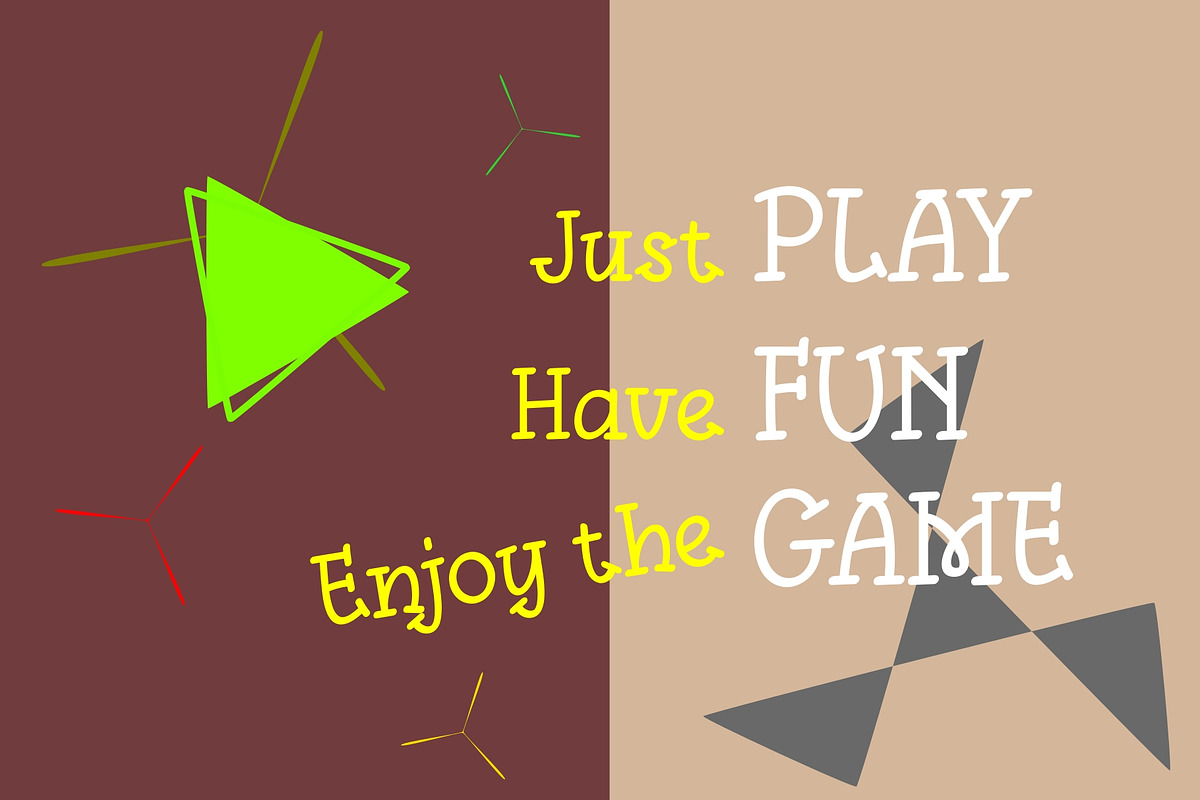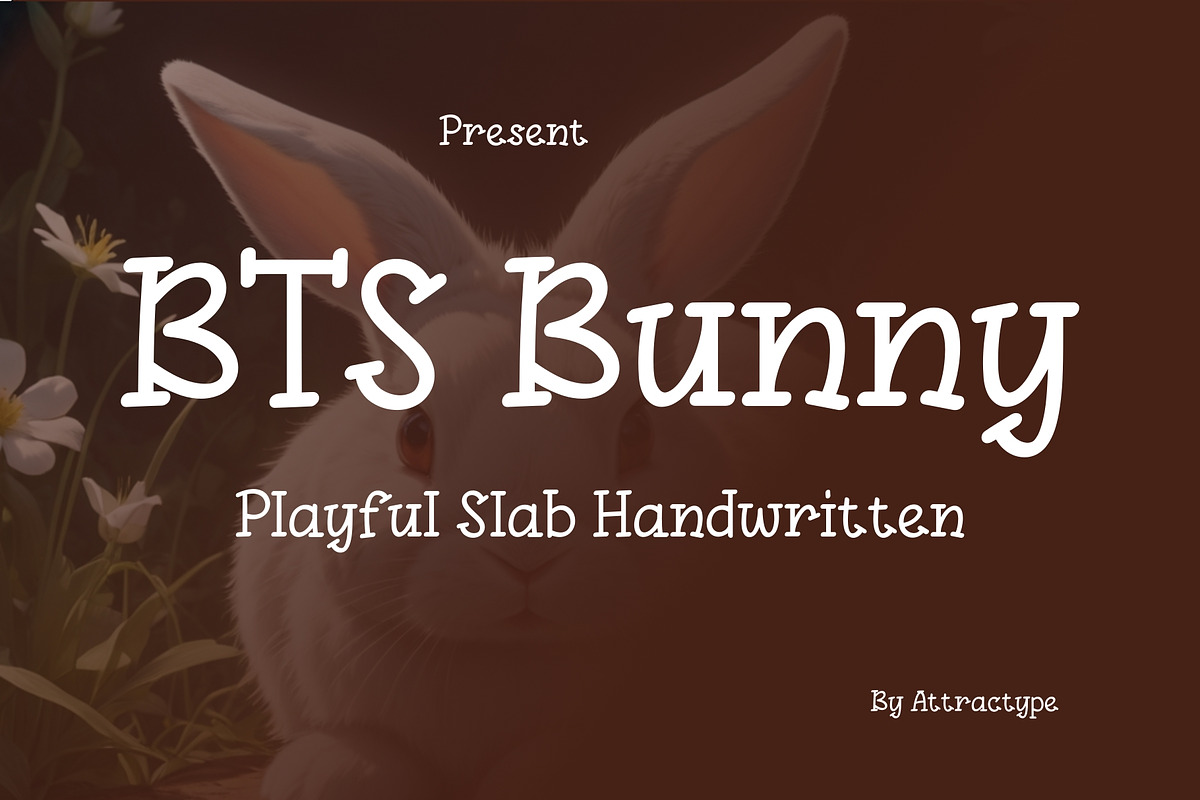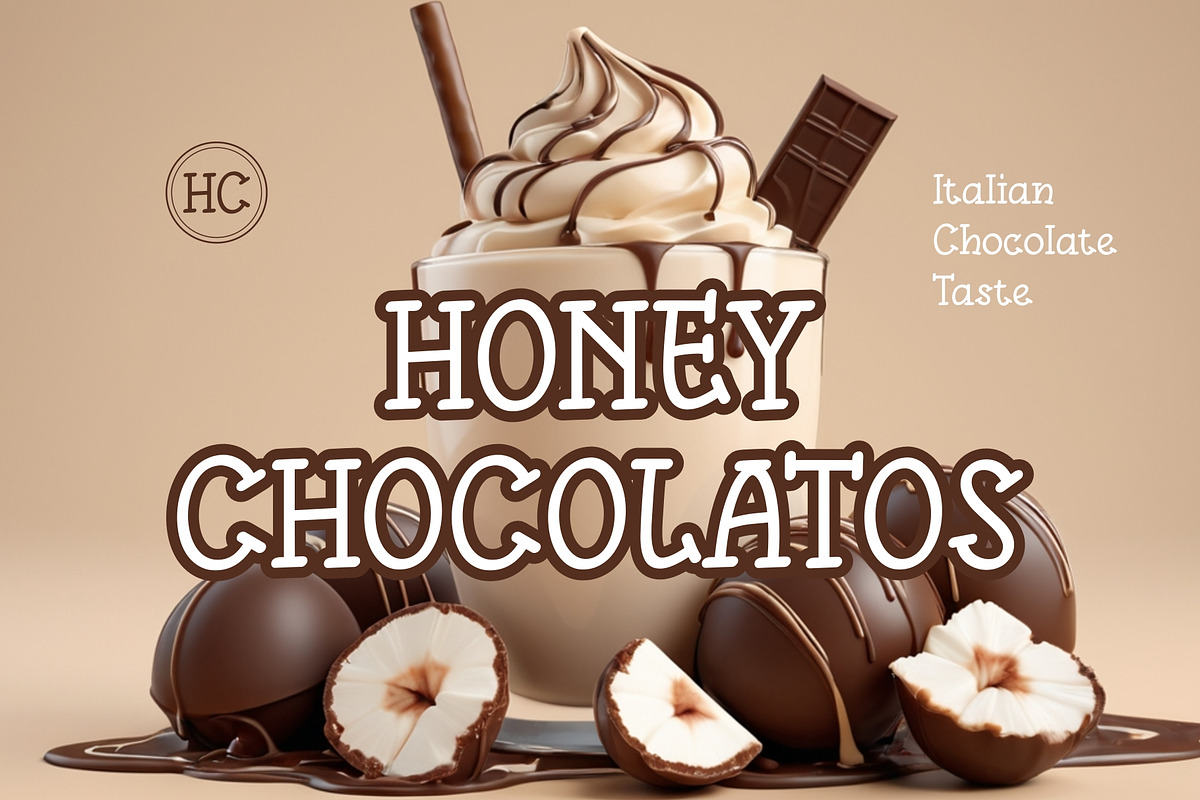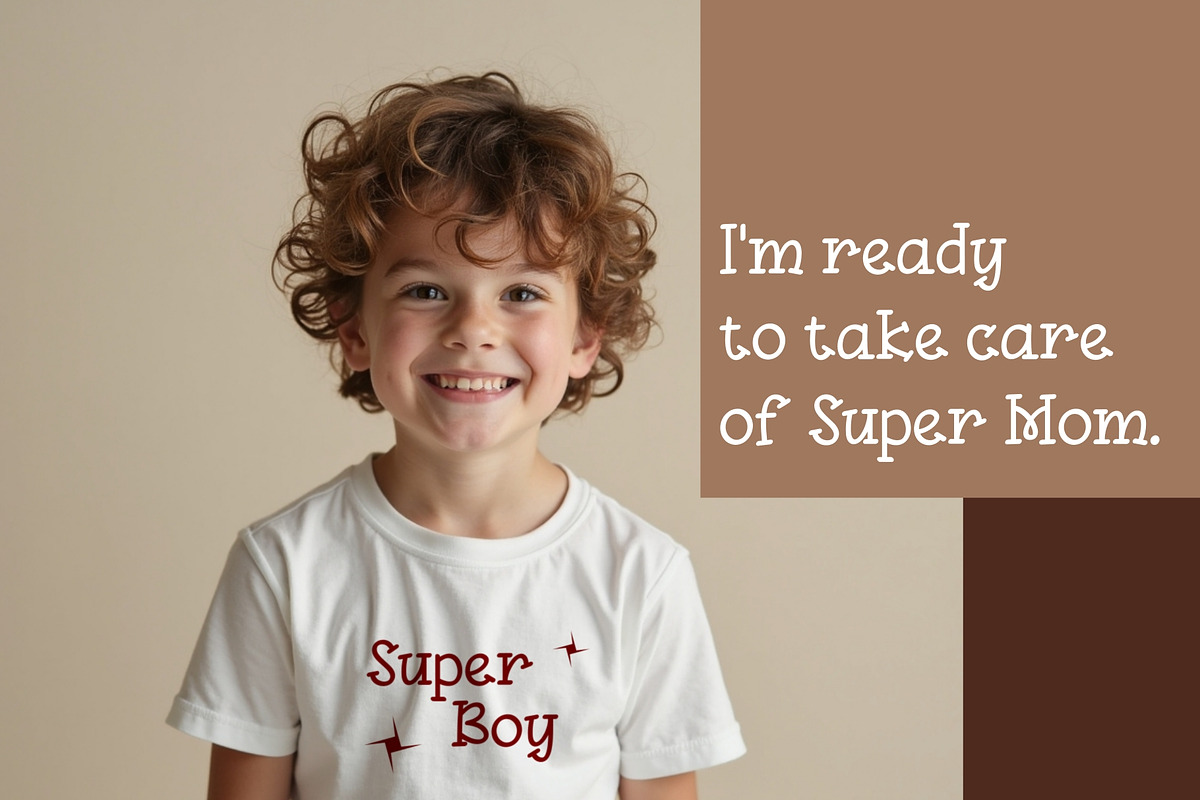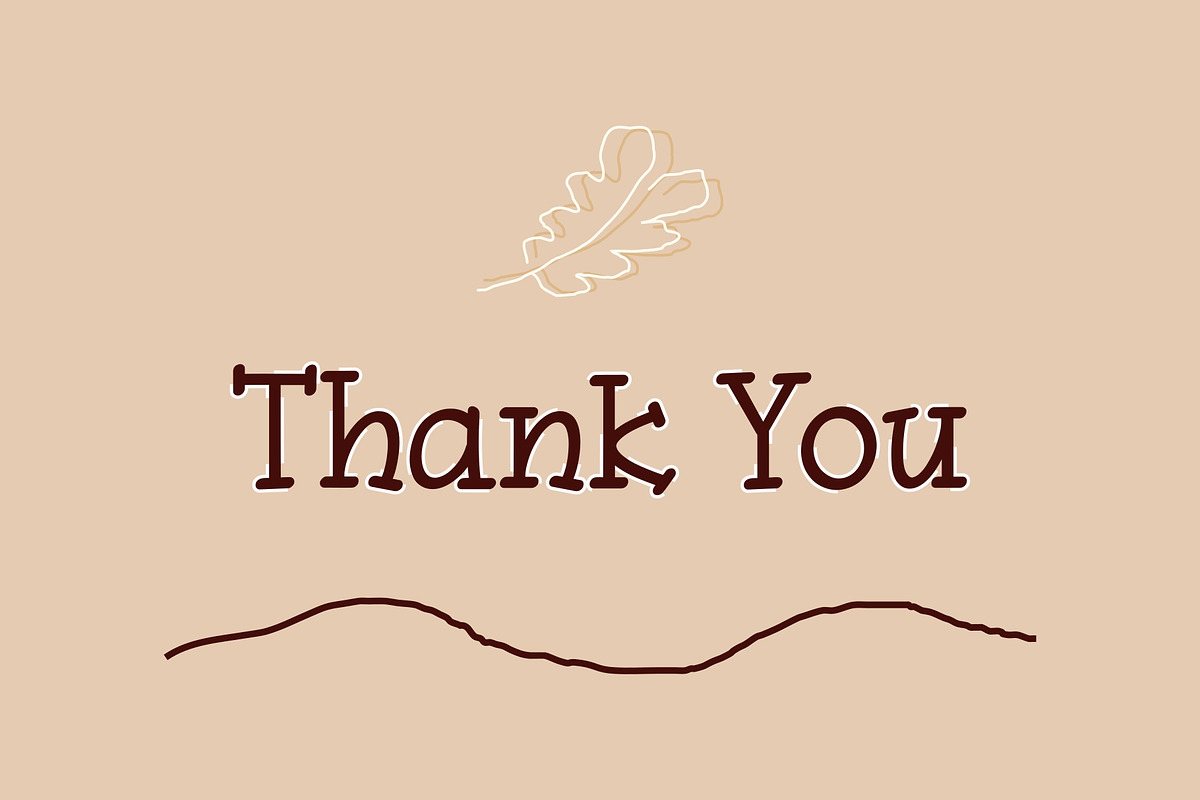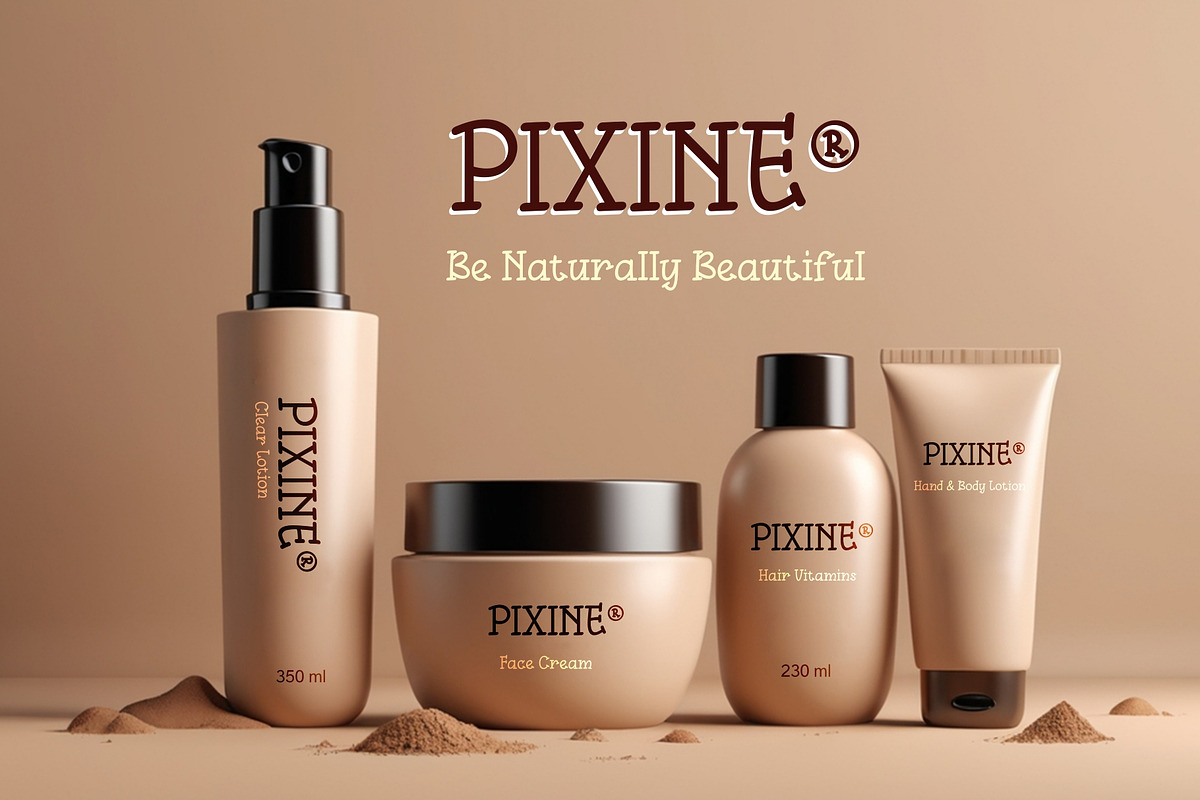
BTS Bunny - Playful Slab Handwritten
BTS Bunny is a simple, easy-to-read, and playful handwritten font. Suitable for your various great design projects with cheerful, natural, classic, vibrant, and familiar themes.
This font contains all uppercase and lowercase letters, numbers, punctuation, and multilingual support.